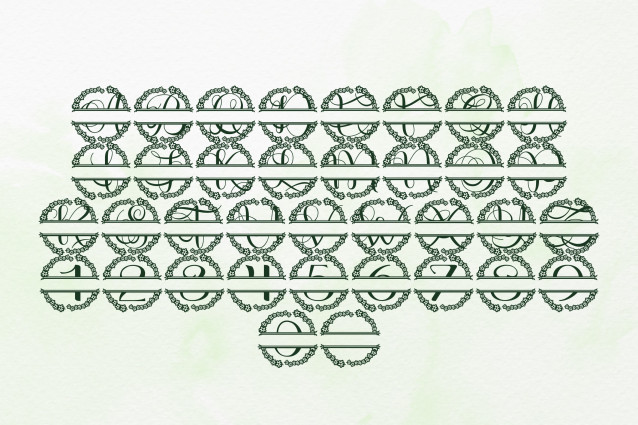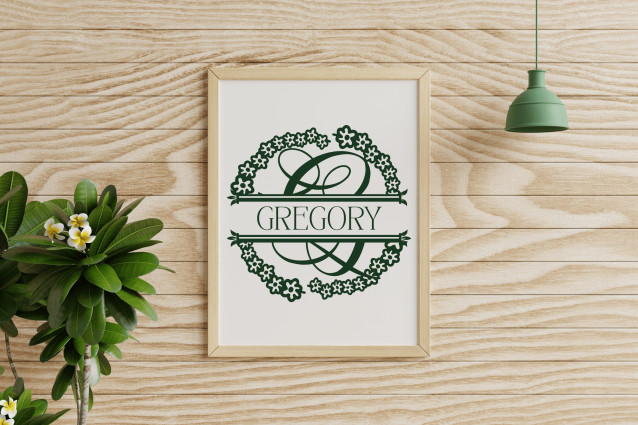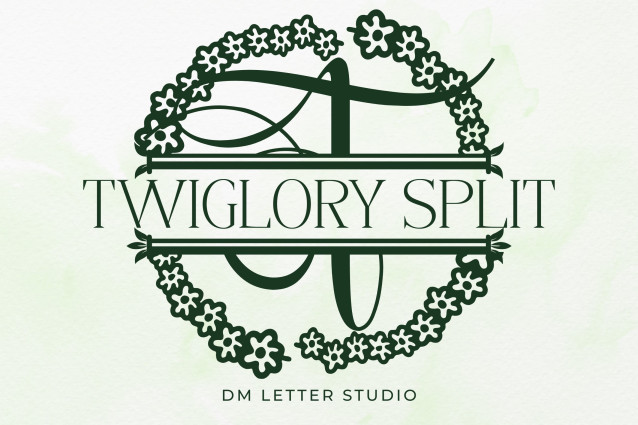
Twiglory Split Font
Twiglory Split Monogram is a rustic serif font featuring a classic split design for easy customization. The elegant uppercase letters are adorned with graceful twig embellishments, making it the perfect choice for personalized crafts, wedding signage, and rustic-themed gifts.